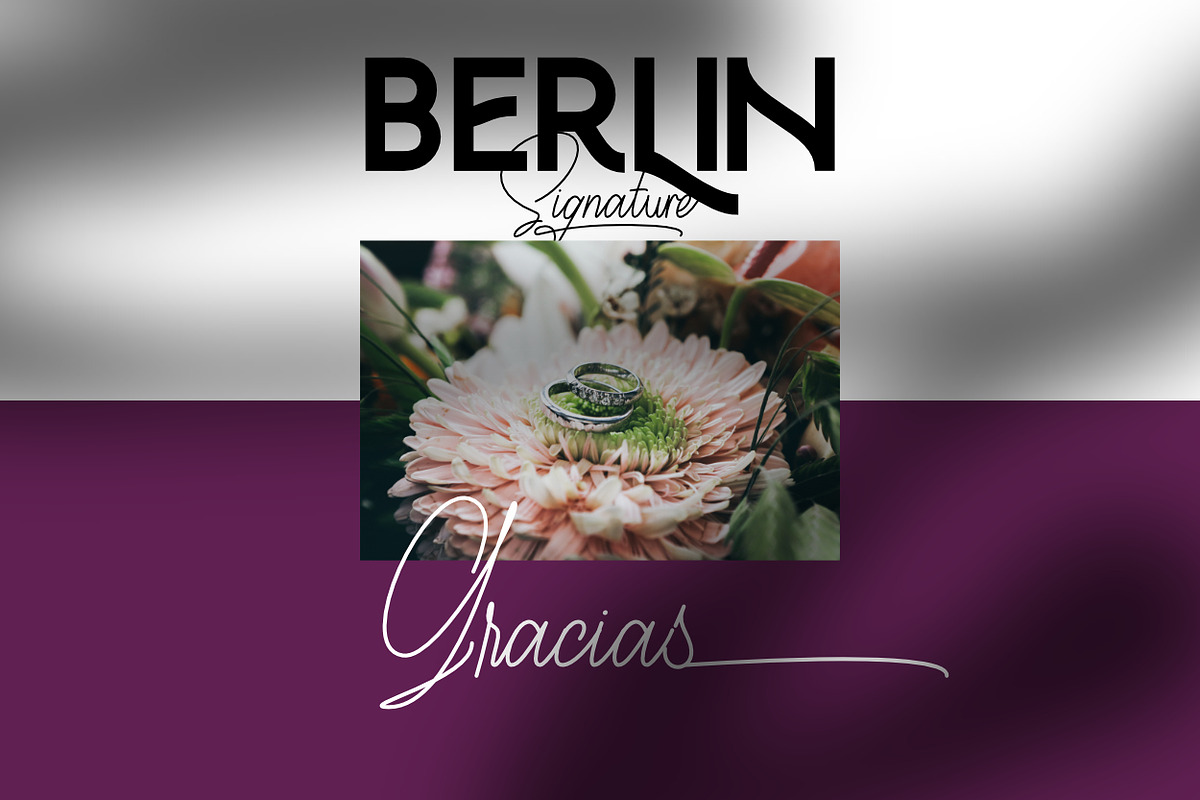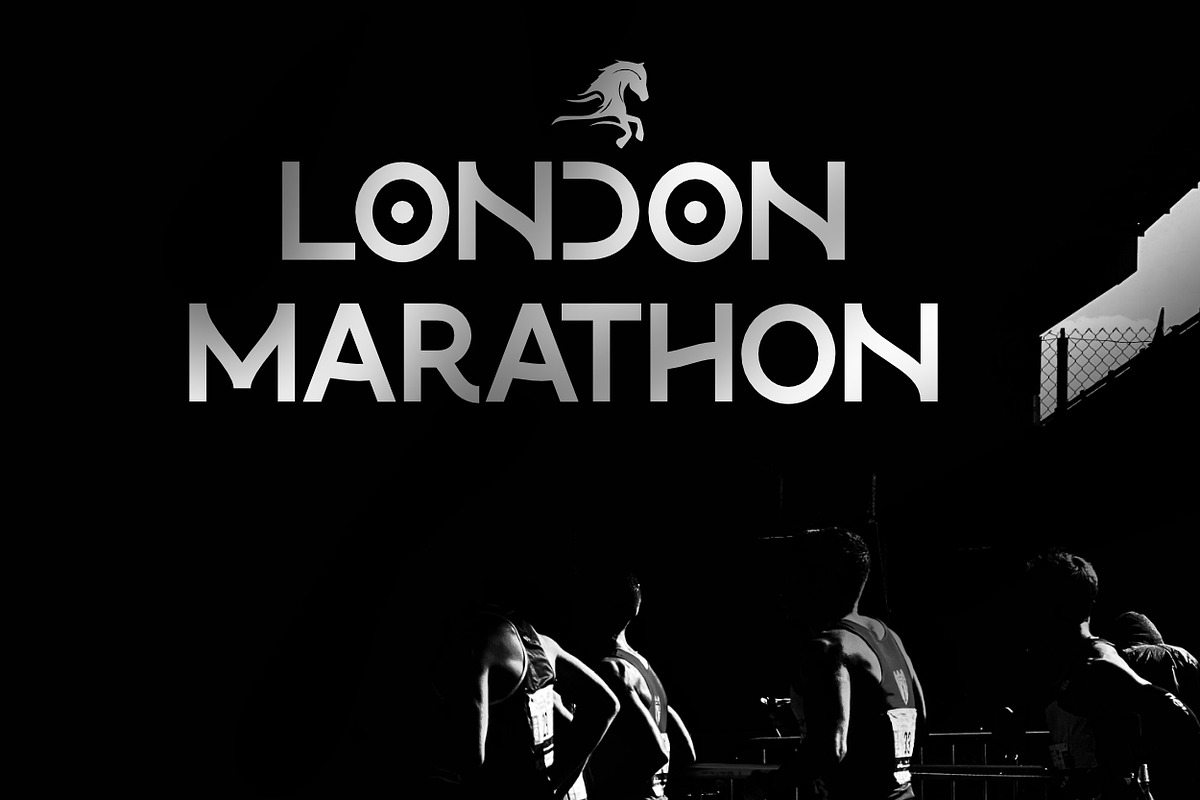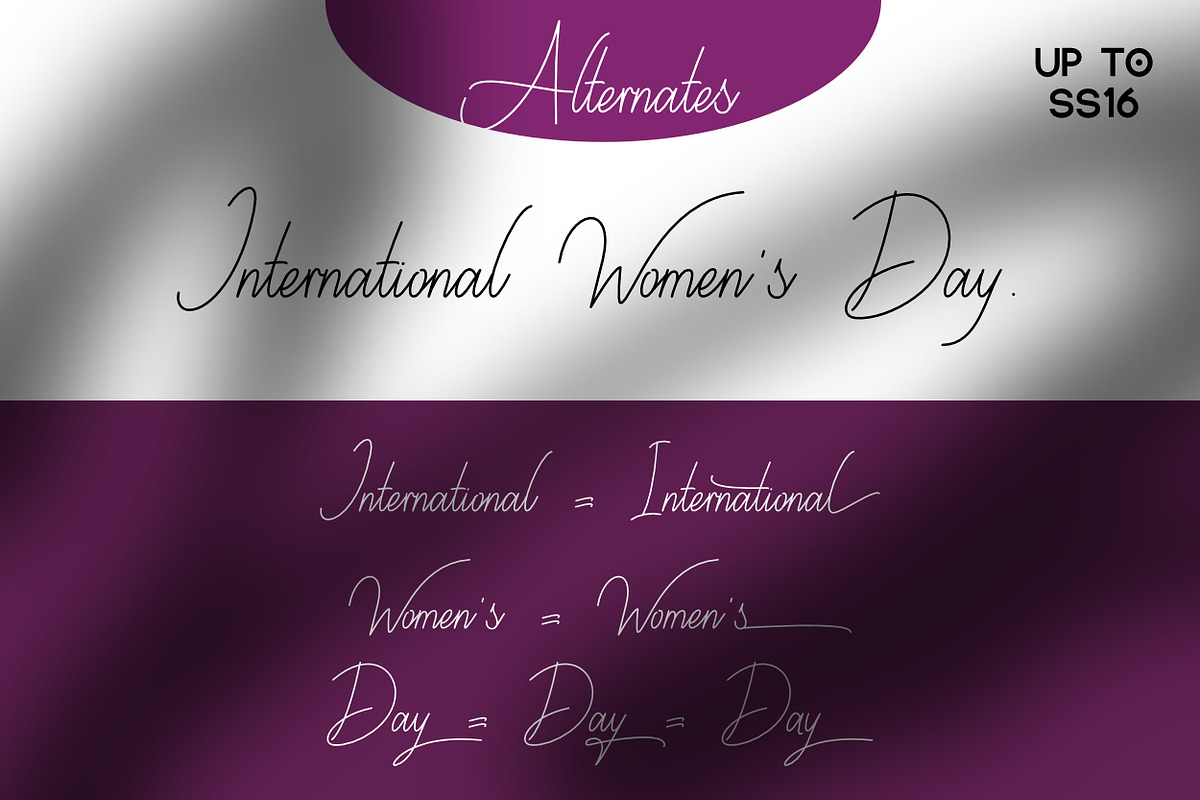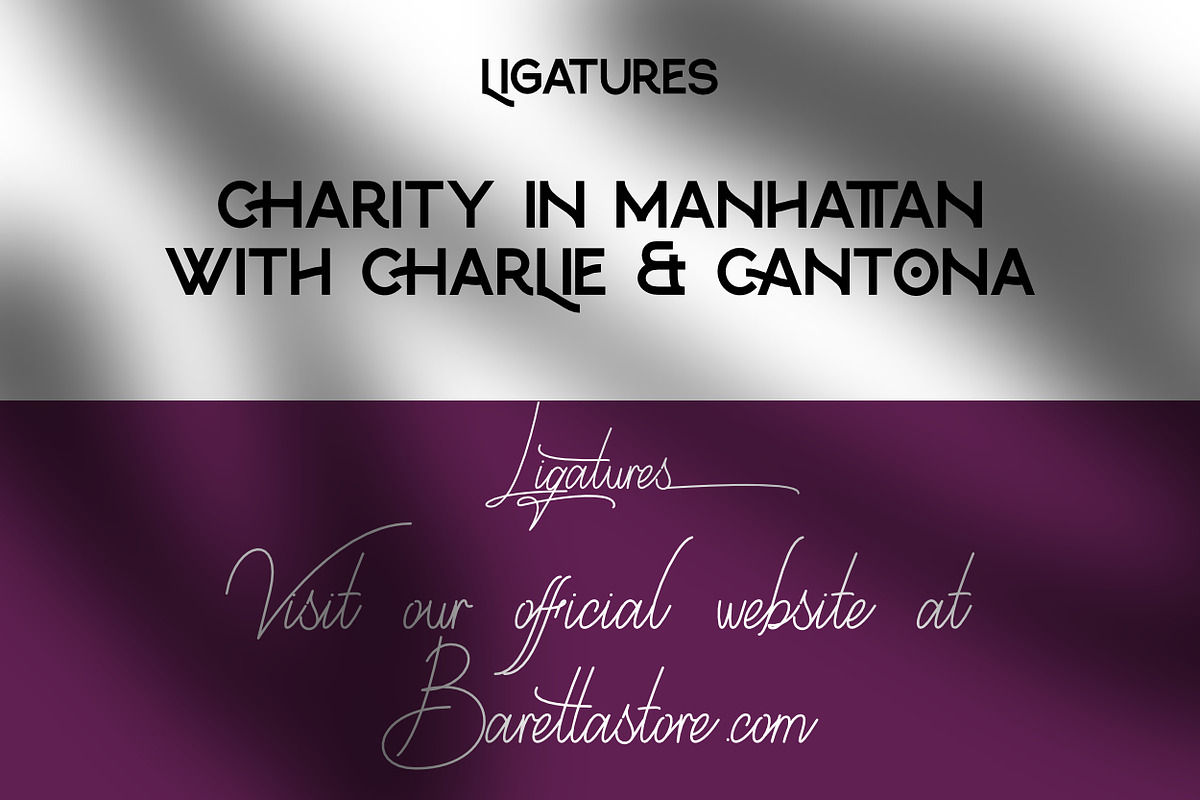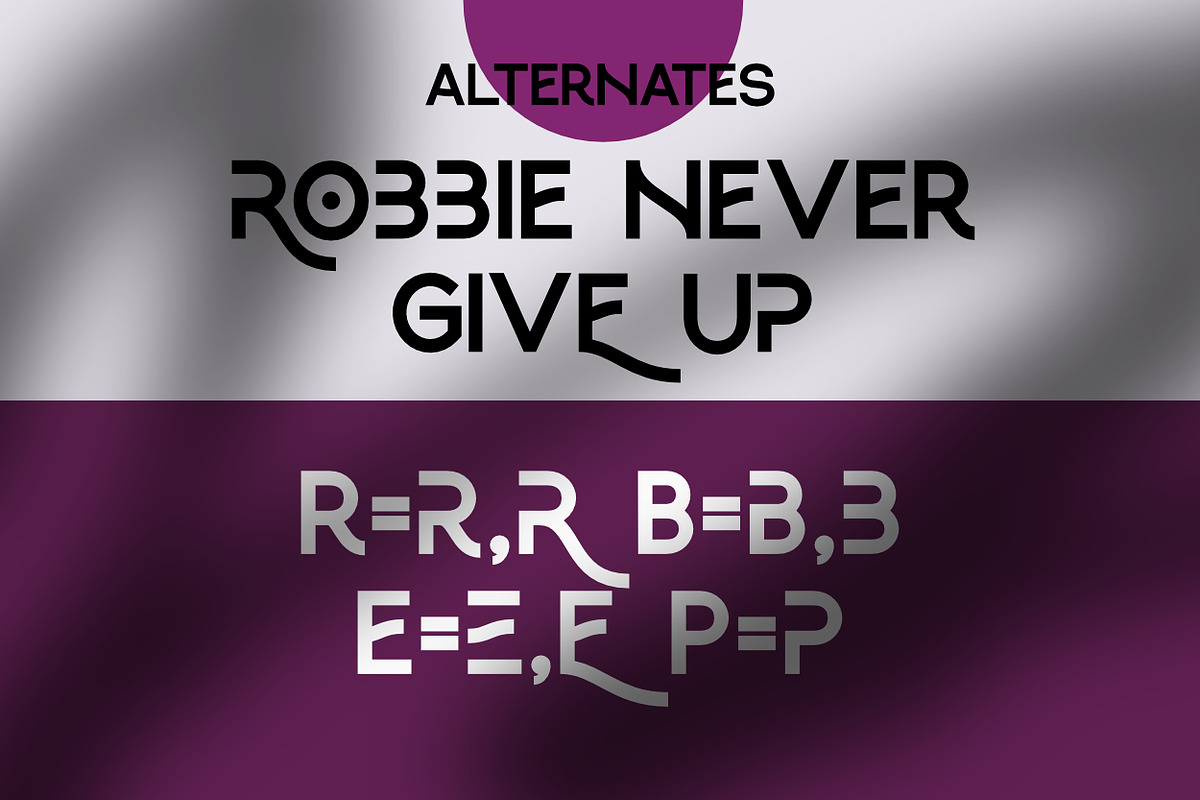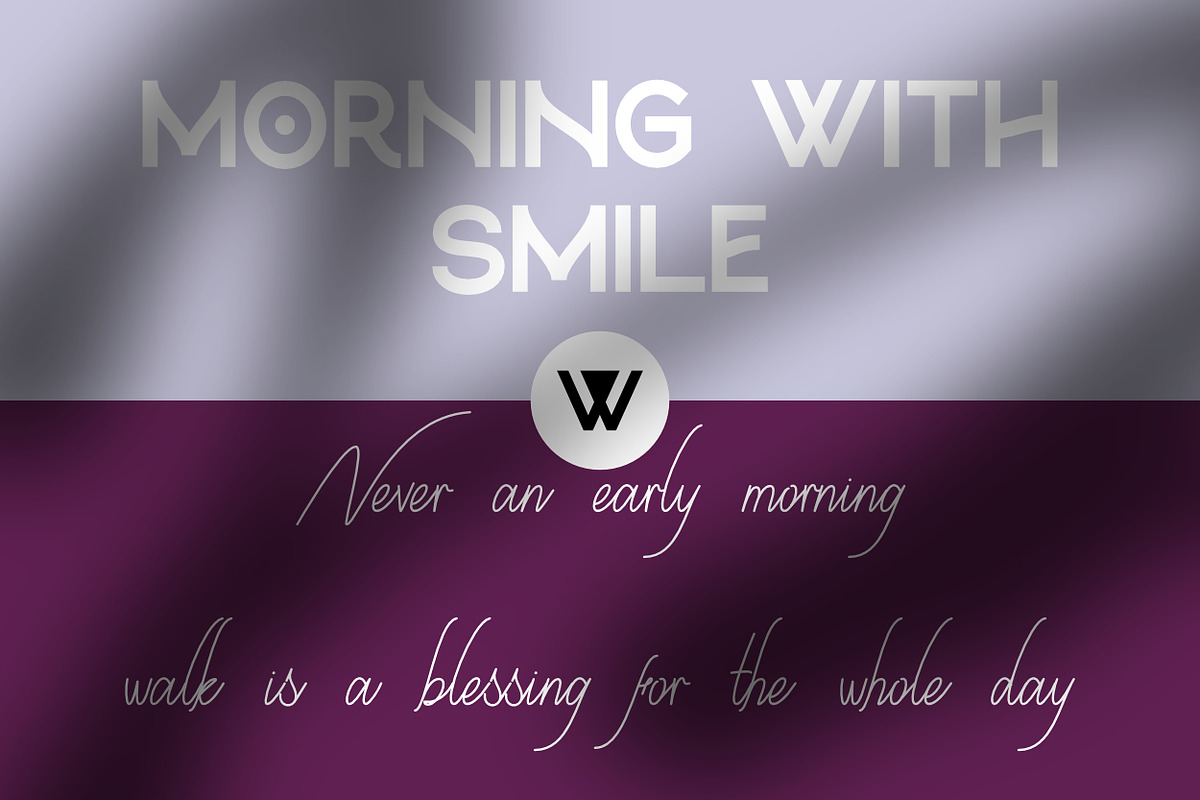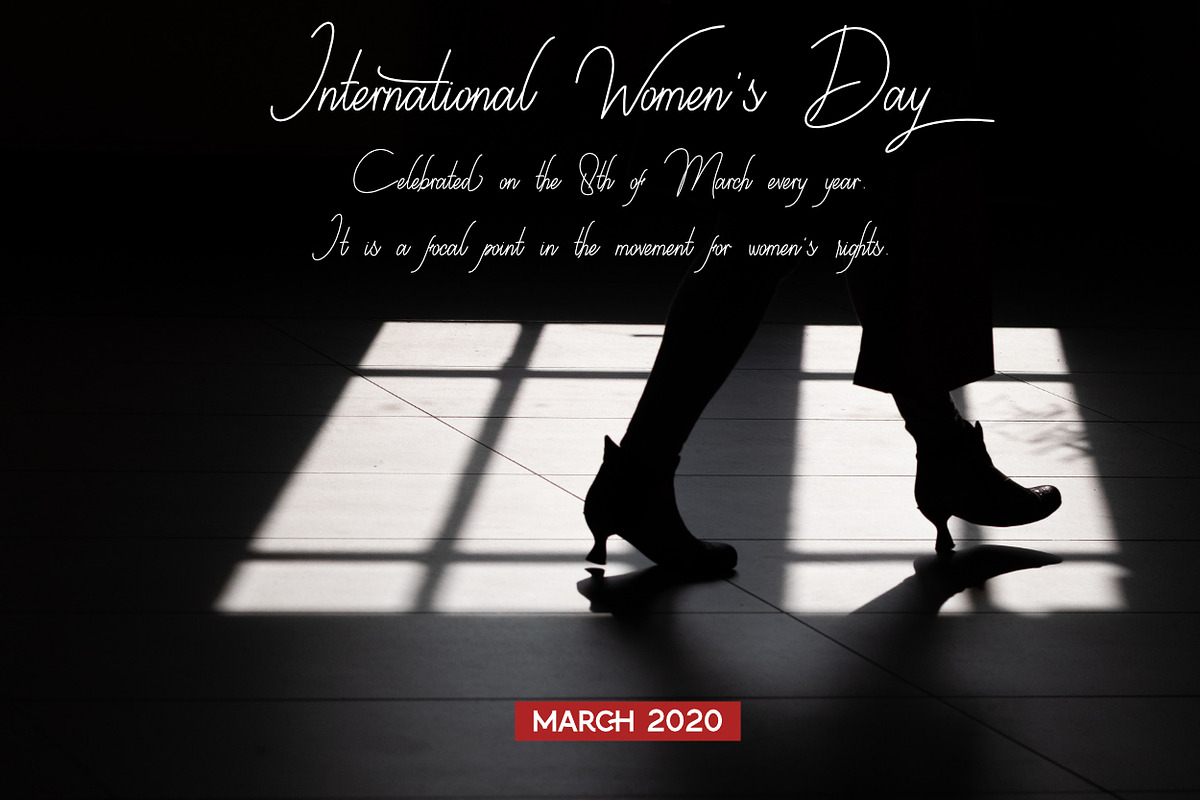
Berlin Modern Elegant Luxury font
Berlin Signature is a modern, elegant font that blends luxury with a touch of vintage charm—perfect for standout logos, refined branding, and sophisticated design projects. With its clean, minimal aesthetic and graceful details, this sans serif beauty brings timeless elegance to everything from high-end fashion labels to modern wedding stationery.
Whether you're building a bold brand, crafting a stylish logo, or creating a sleek brand identity, Berlin Signature gives your work that luxurious, confident feel. It’s designed for creatives who love clean, geometric forms but still want a font that speaks with personality and class.
Ideal for branding, packaging, editorial design, and more—Berlin Signature is your go-to font for when you want something modern, elegant, and unforgettable.